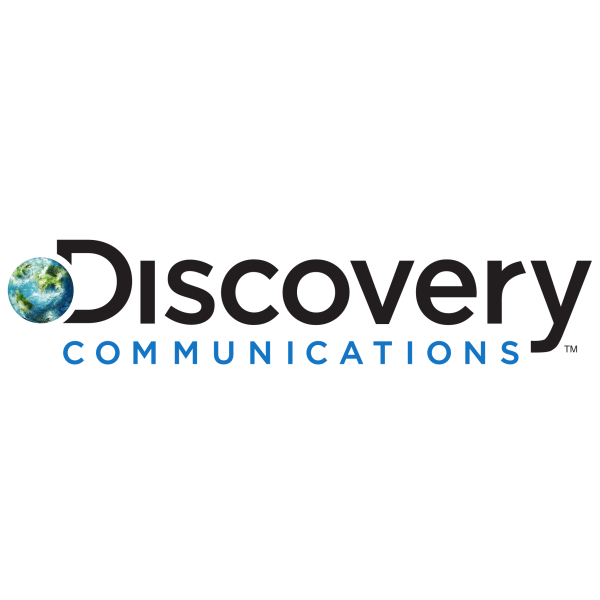
Discovery Communications Font
Fonts in UseDiscovery Communications is a mass media company that specializes in non-fiction and factual programming, including popular networks such as Discovery Channel, Animal Planet, and TLC. It was founded in 1985 and is based in Silver Spring, Maryland, USA.
The logo's font is Gotham Medium, a geometric sans-serif typeface that draws inspiration from the style of architectural signage that gained popularity in mid-20th century New York City. For additional information on this font, please check here.